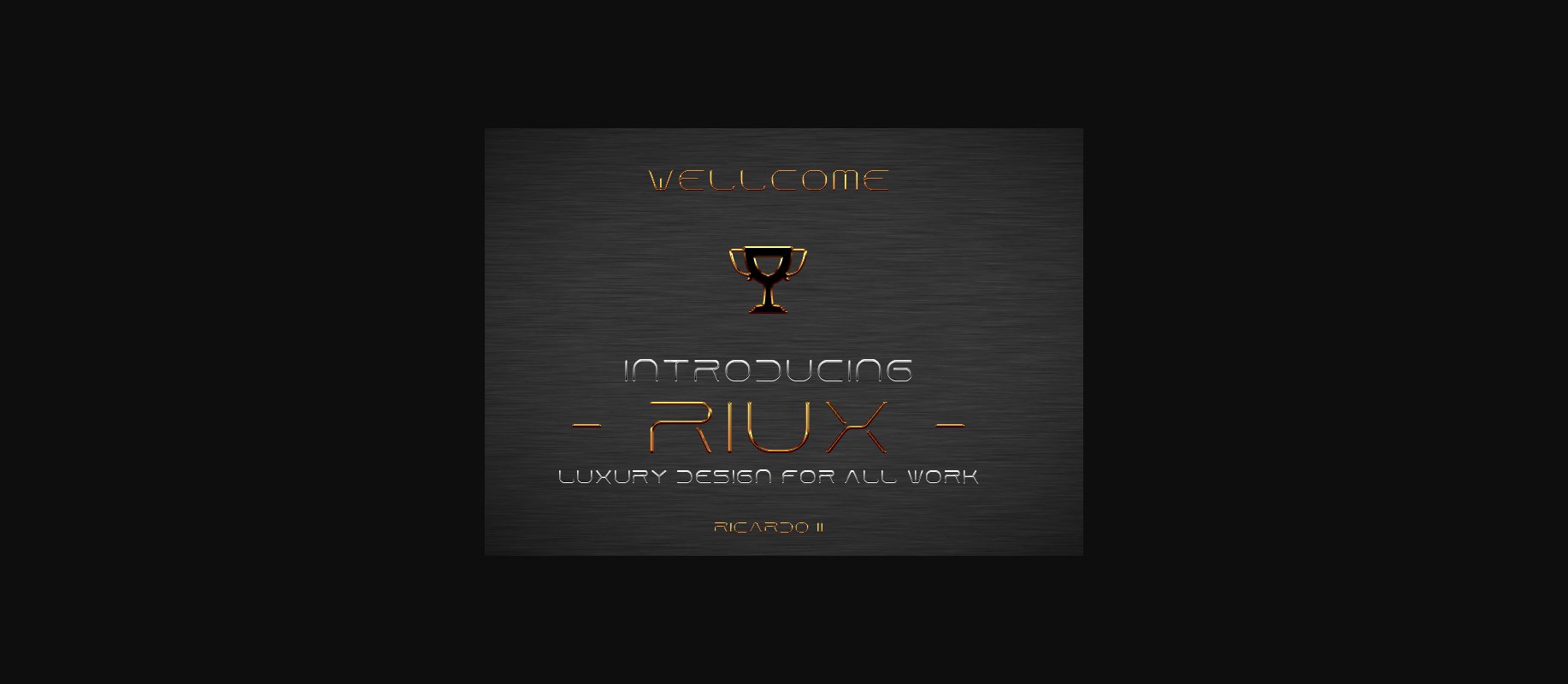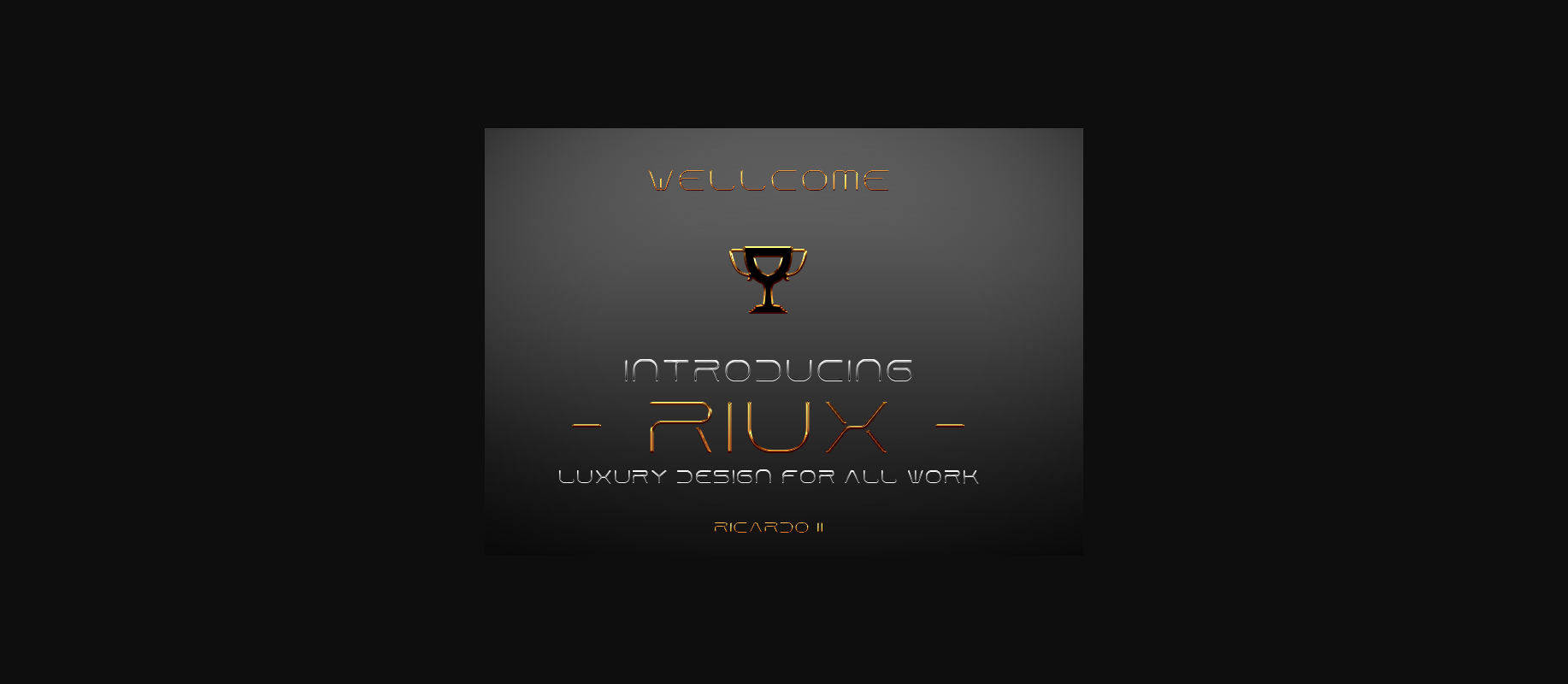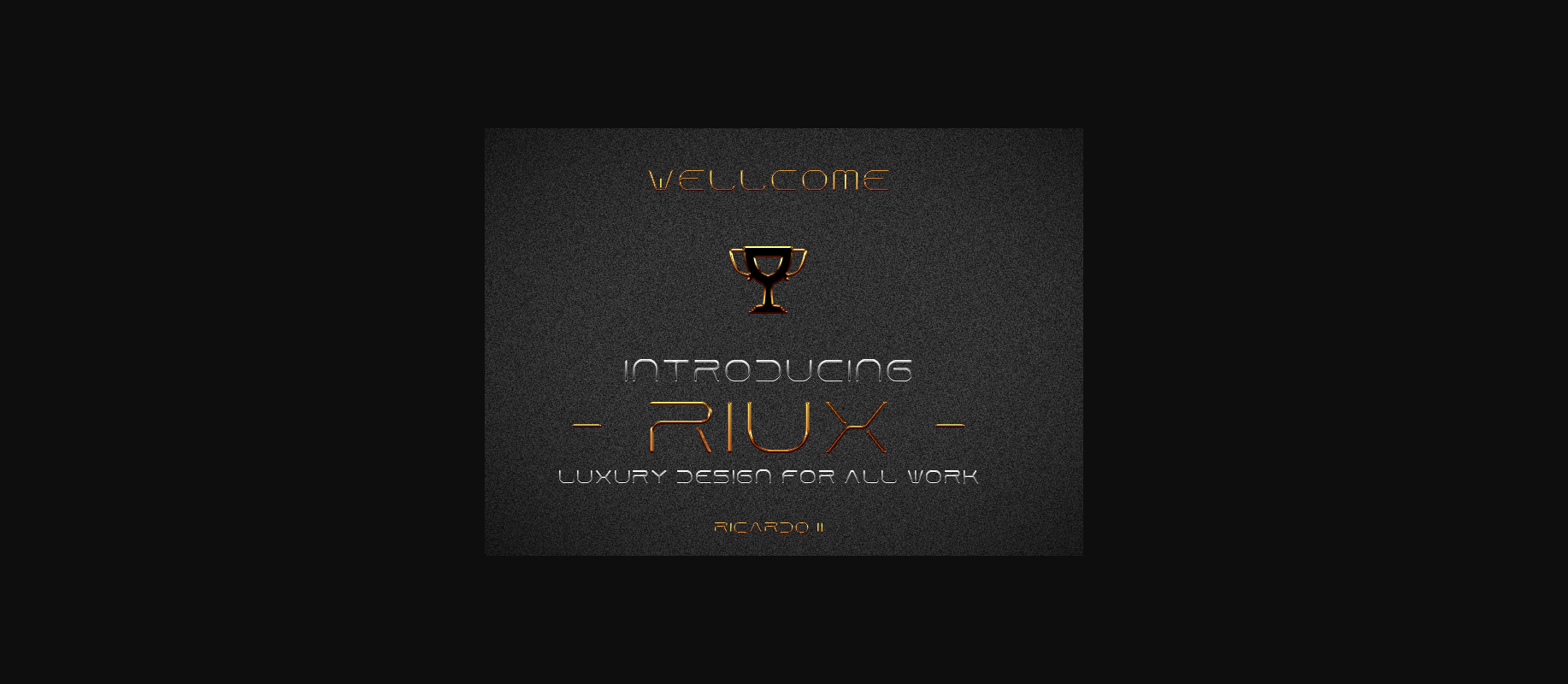
Rihux Font
About Rihux Font
Rihux embodies fun, quirkiness and authenticity. This enchanting decorative font will turn any creative idea into a true standout.